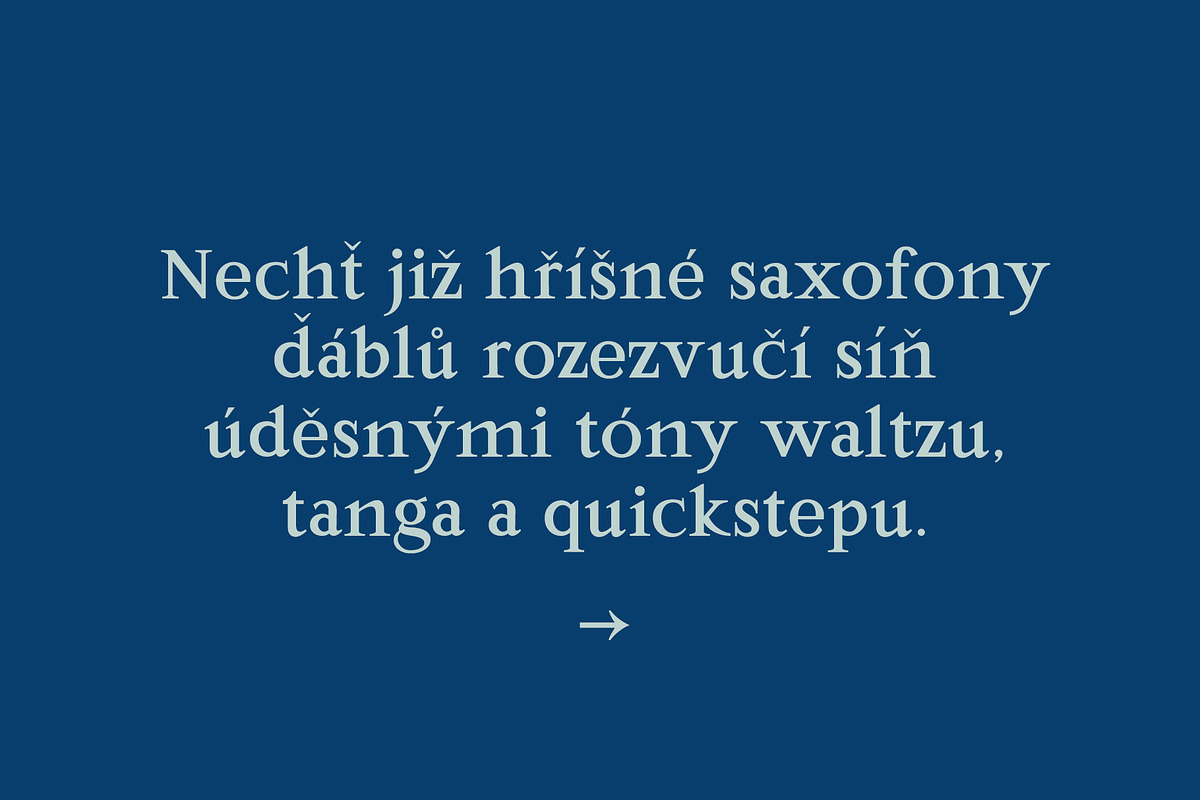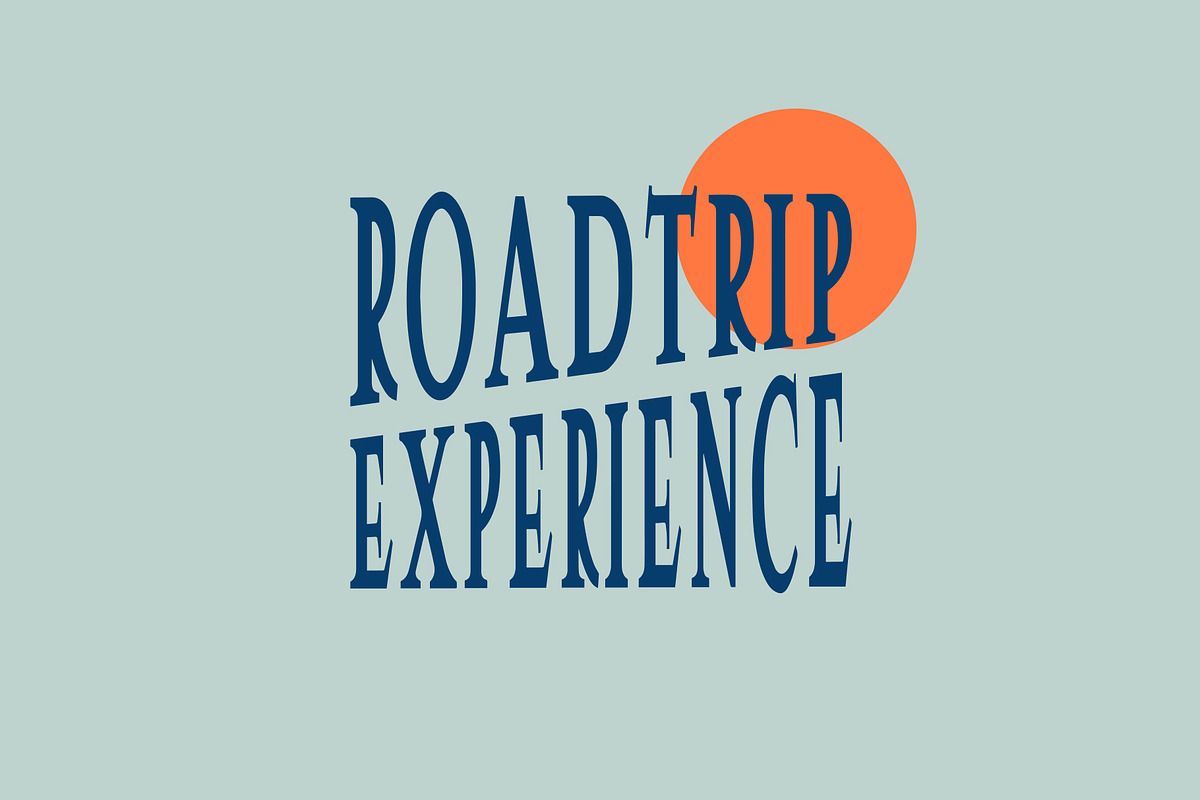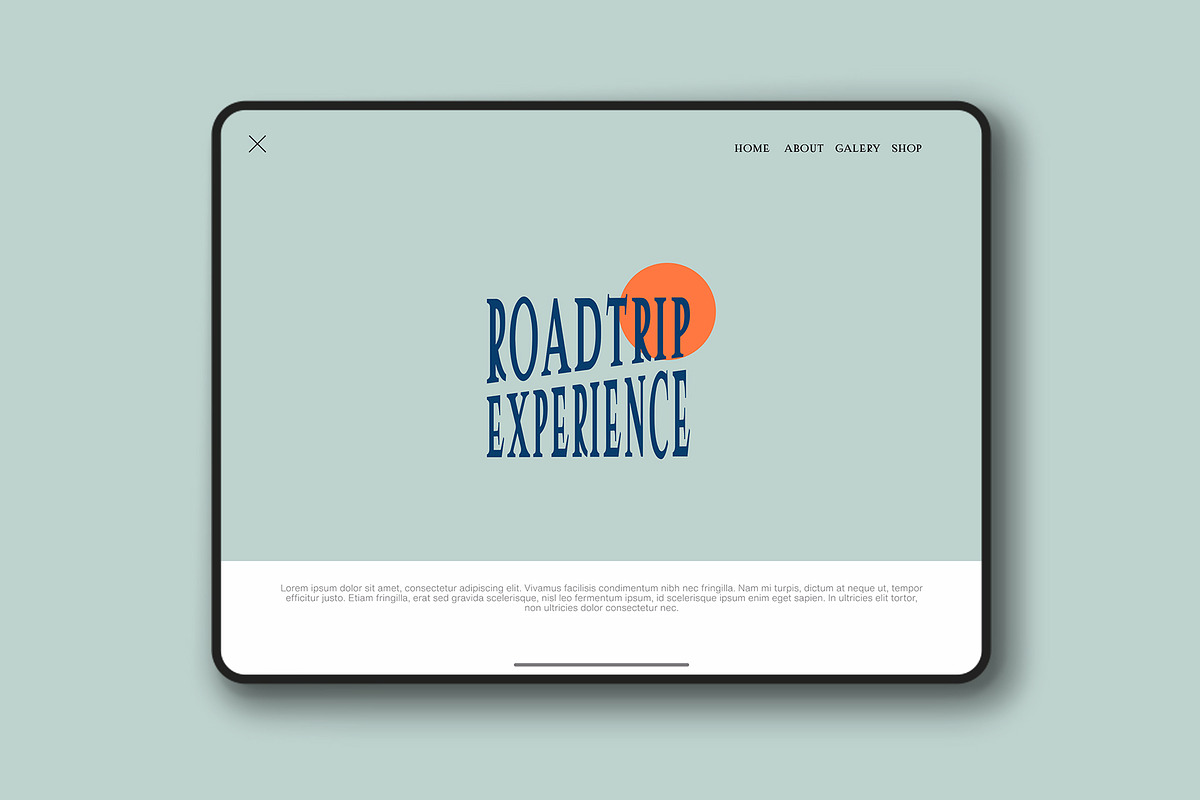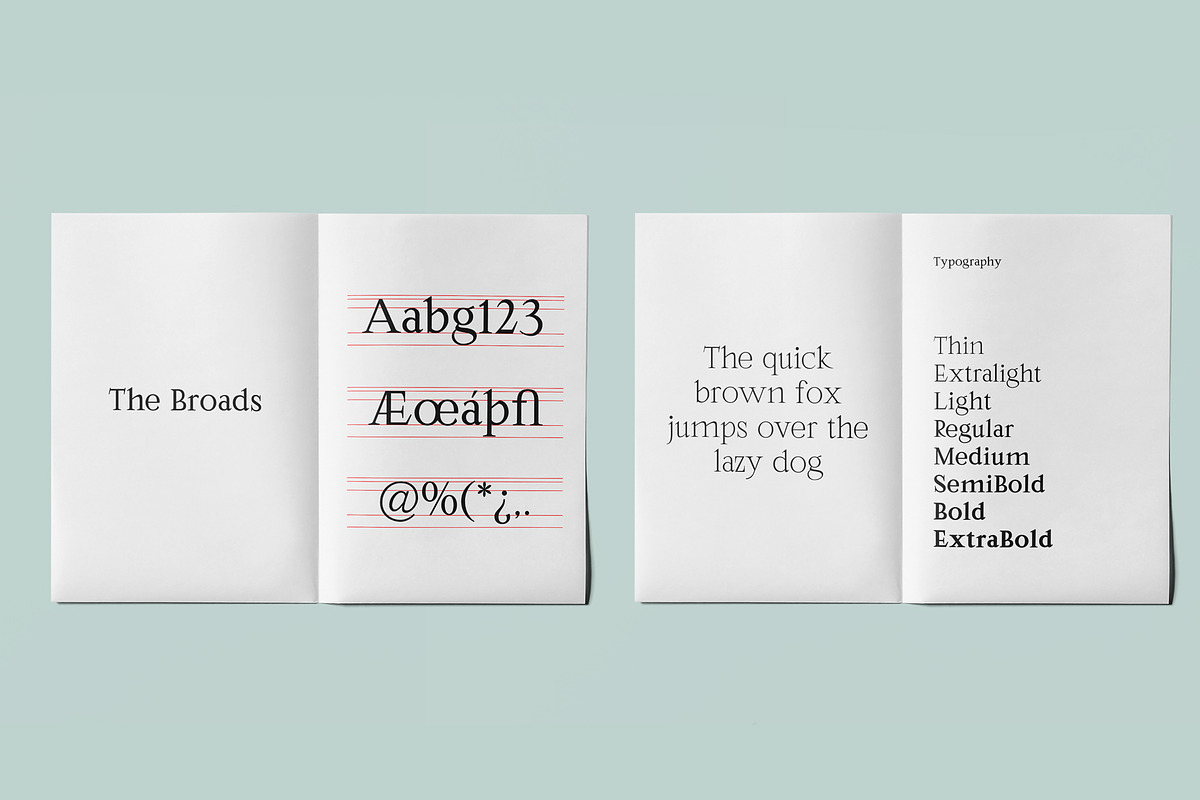
The Broads
The Boards is a modern roman serif font , these font ideas come from a variety of reference books, labels, and some feeds on social media. This font looks modern, luxurious, but also looks a bit classic and vintage. This font is also designed to be easily combined with other fonts and can be applied in the design or branding of a project.
The Broads is available in 8 styles: Thin, ExtraLight, Light, Regular, Medium, SemiBold, Bold , and ExtraBold. This font is good for various graphic design needs, such as, magazines, posters, logos, branding, UI / UX, etc.